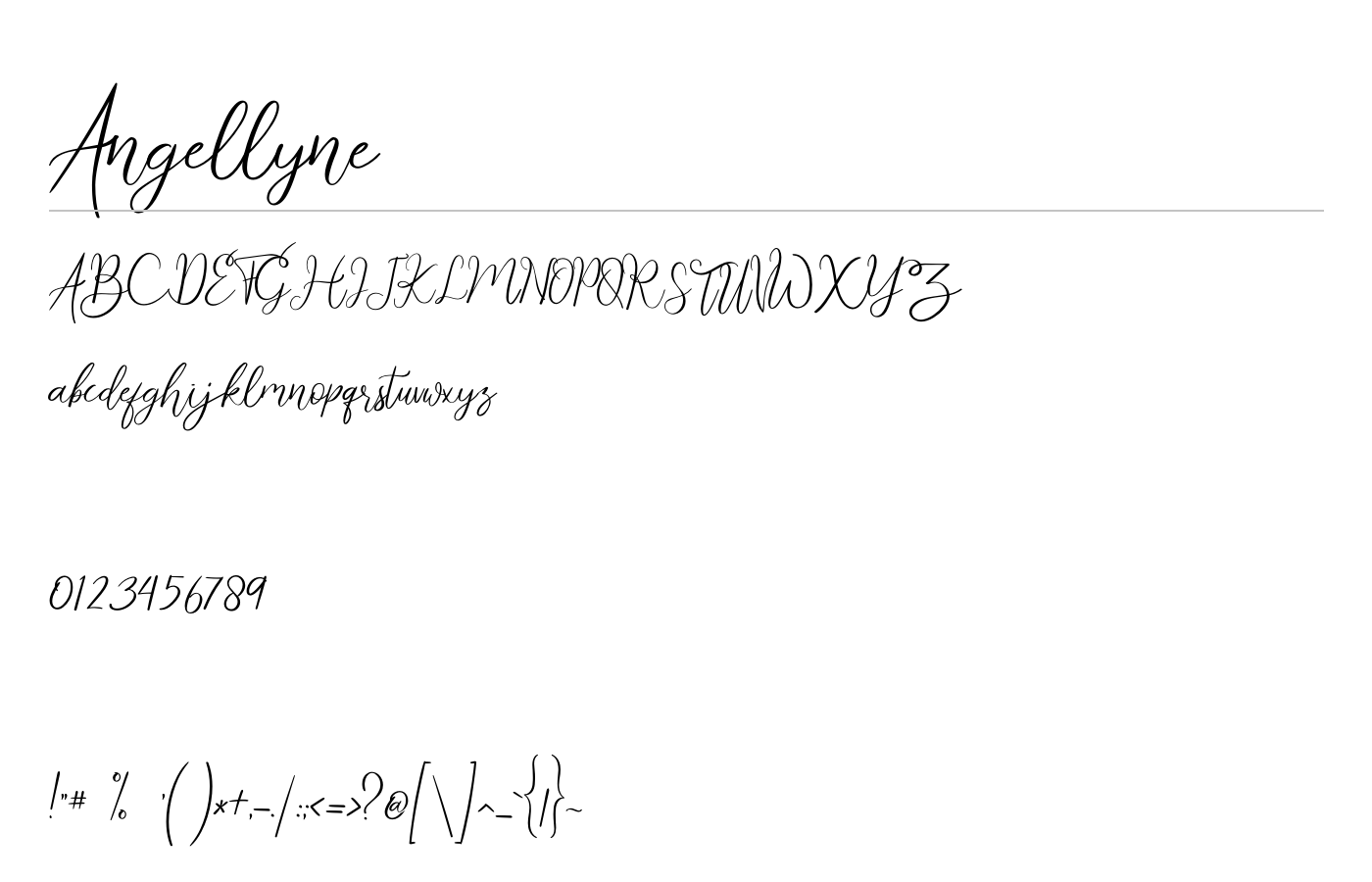
Angellyne is a delicate, elegant script font featuring slender, flowing strokes with a graceful, handwritten feel. Its tall, narrow letterforms and fine lines create a sophisticated and airy look, ideal for adding a touch of femininity and charm to invitations, branding, and stylish editorial designs. This font works beautifully where a light, personal touch is needed to convey elegance and refinement.
Angellyne Font
About Angellyne Font